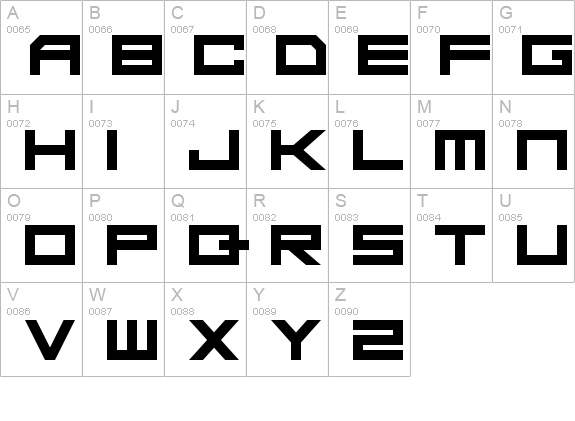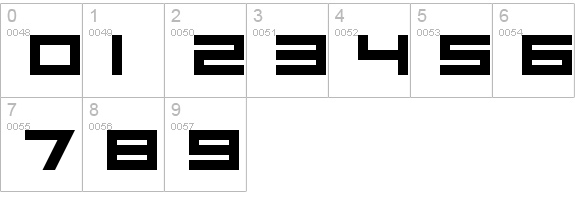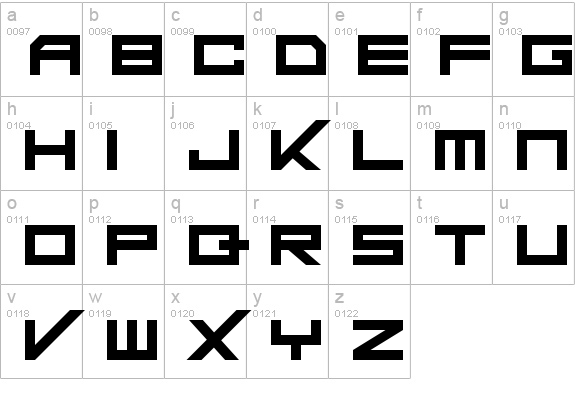
Da Mad Rave Font Details
Da Mad Rave is a free for personal use font in the Modern > Techno category, designed by Darrell Flood. It has been downloaded 37 times and is available for Windows, Mac and Linux.
Da Mad Rave font is a vibrant and energetic display typeface that captures the essence of a wild and lively rave party. Its bold and edgy design exudes a sense of excitement and fun, making it perfect for posters, flyers, and other designs that need to stand out. With its unique shapes and dynamic letterforms, Da Mad Rave font is sure to make a statement and grab attention.